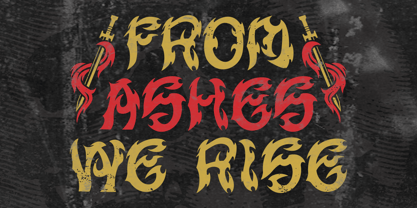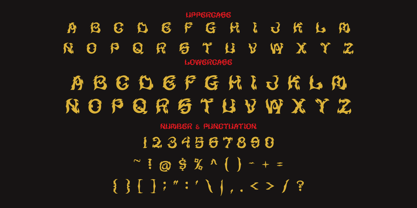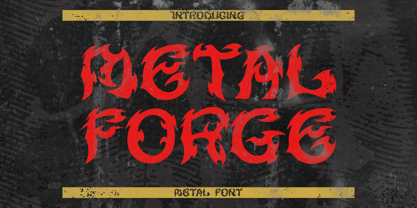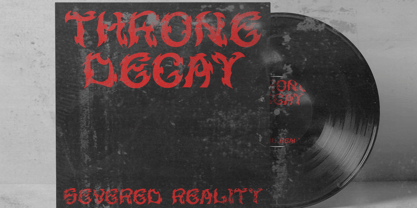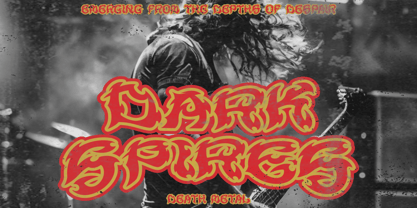
Metal Forge
by Shanaf
The Metal Forge Font Family was designed by Yesie Erma Yunita and published by Shanaf. Metal Forge contains 1 styles.
Introducing Metal Forge - Metal Font, a fierce and rebellious typeface crafted for lovers of heavy music, dark aesthetics, and bold design. This blackletter-inspired metal font features sharp, aggressive strokes with flame-like edges, exuding the raw power of death metal and gothic typography. Its distressed texture and rough details create a worn-out, battle-hardened effect, perfect for metal band logos, album covers, and underground event posters. The intense red typography set against a rugged black background enhances the font's brutal and high-energy appeal, making it ideal for branding, apparel, and tattoo designs. Whether you’re working on merchandise, horror movie titles, or alternative magazine covers, Metal Forge delivers a heavy-hitting visual impact that demands attention.
Designed for bold, high-contrast compositions, Metal Forge is a must-have for grunge-style graphics, dark fantasy projects, and hardcore branding. The gothic, yet modern letterforms blend medieval blackletter aesthetics with metal band typography, making it versatile for posters, stickers, game titles, YouTube banners, and rebellious fashion lines. The grungy gold accents and gritty textures in the background reinforce the brutal, underground vibe, ensuring that every design screams attitude and dominance. If you need a font that embodies raw energy, gothic edge, and metal culture, Metal Forge is your ultimate weapon.